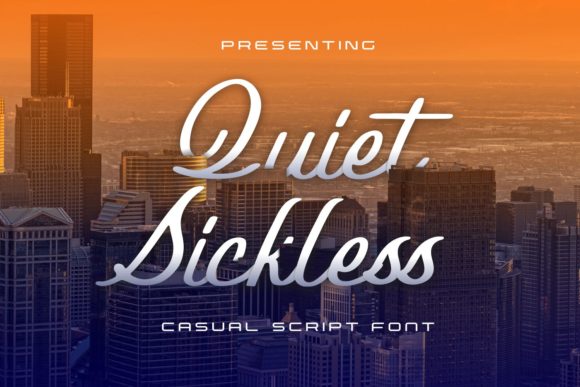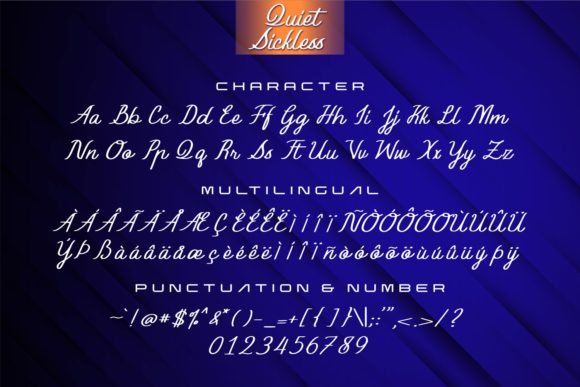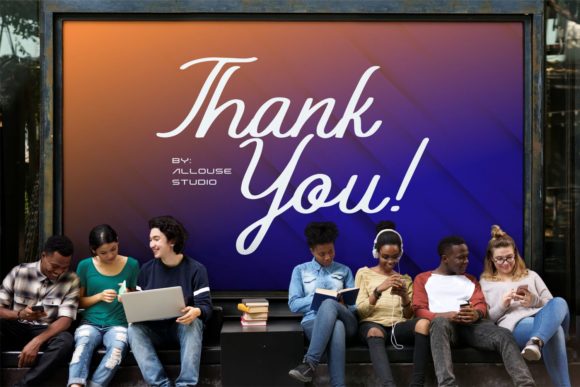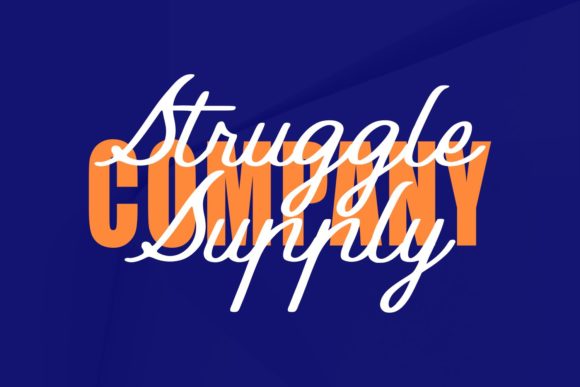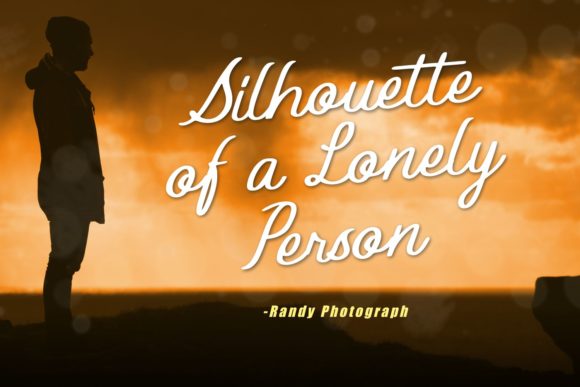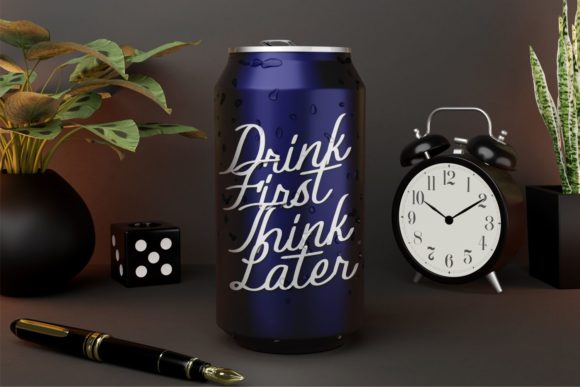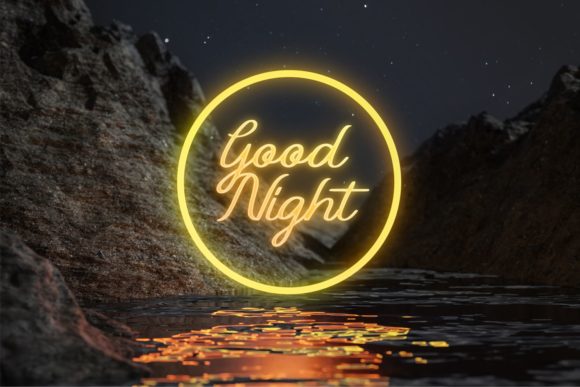
Quiet Sickless Font
About Quiet Sickless Font
Quiet Sickless is a stylish and delicate font that exudes a clean, thin, and smooth vibe. With its refined and elegant appearance, it is sure to make a striking impact on any design you incorporate it into.
The font’s clean lines and minimalistic design give it a modern and sophisticated look. The thin strokes and smooth curves contribute to its delicate and graceful aesthetic, making it perfect for projects that require a touch of elegance and subtlety.
Quiet Sickless is a versatile font that can be used in a variety of design contexts. Whether you’re creating logos, branding materials, invitations, or any other design project, this font adds a level of sophistication and refinement to your work.
In logo design, Quiet Sickless can help create a memorable and distinctive brand identity. Its stylish and delicate appearance can convey a sense of sophistication, making it suitable for businesses in various industries, such as fashion, beauty, or luxury goods.
When used in branding materials such as business cards, stationery, or packaging, Quiet Sickless elevates the overall aesthetic and gives a sense of elegance to your brand. Its clean and smooth lines make it visually appealing and pleasing to the eye, while the thin strokes add a sense of delicacy and refinement.
For invitations and event materials, Quiet Sickless brings a touch of sophistication and charm. Whether it’s for a wedding, gala, or other special occasions, this font can enhance the elegance and formality of your design, setting the right tone for the event.
The readability of Quiet Sickless is also noteworthy. Despite its delicate appearance, the font maintains legibility, ensuring that your message is effectively conveyed to your audience.
In summary, Quiet Sickless is a stylish and delicate font that adds a clean, thin, and smooth vibe to any design. Its refined and elegant look makes it suitable for a wide range of projects, including logos, branding materials, invitations, and more. Embrace the sophistication of Quiet Sickless and elevate your designs to new heights.